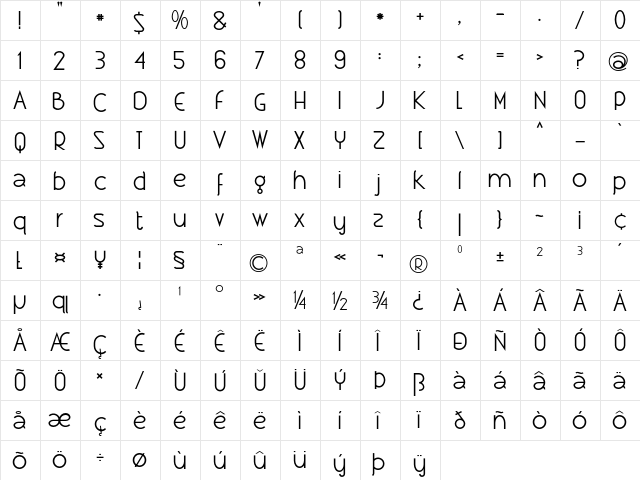
Xtravagant Regular
Design Context for Xtravagant Typeface
Xtravagant offers clean, dependable letterforms without strong stylistic allegiance, making it a practical choice for designers who need flexibility.